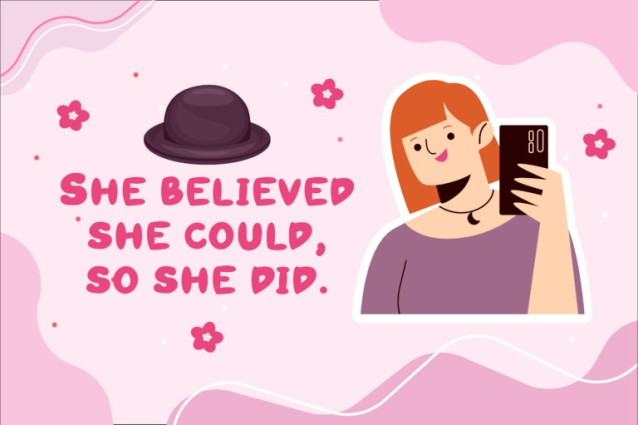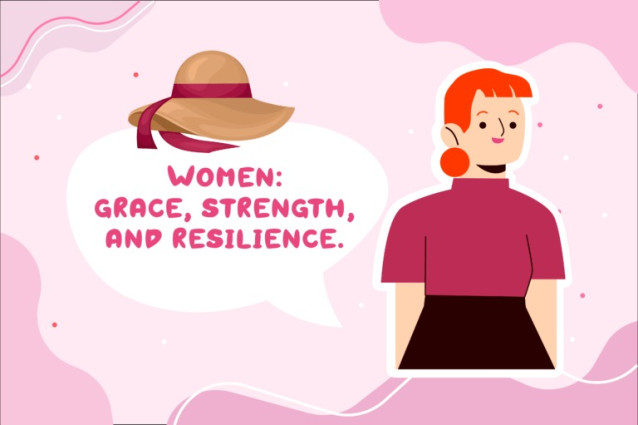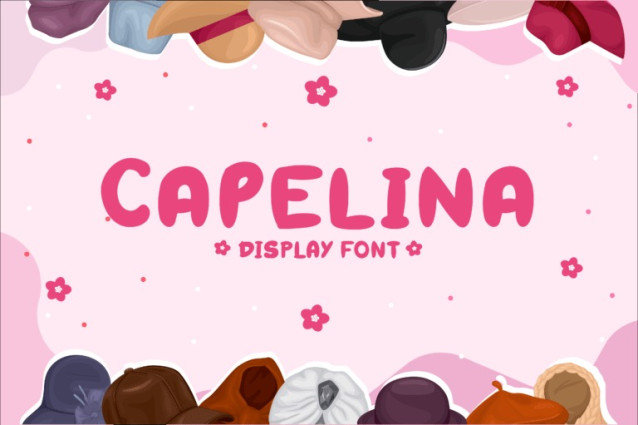
Capelina Display Font
Capelina Display Font is a whimsical display font that brings a sense of fun and wonder to your designs. Designed with playful curves and friendly letterforms, it captivates the imagination of children and the young-at-heart.
With its multilingual support, Capelina allows you to create delightful designs in various languages, making it perfect for children’s books, posters, and playful branding. Unleash your creativity with Capelina and embark on a typographic adventure that transcends borders, spreading joy and enchantment worldwide.